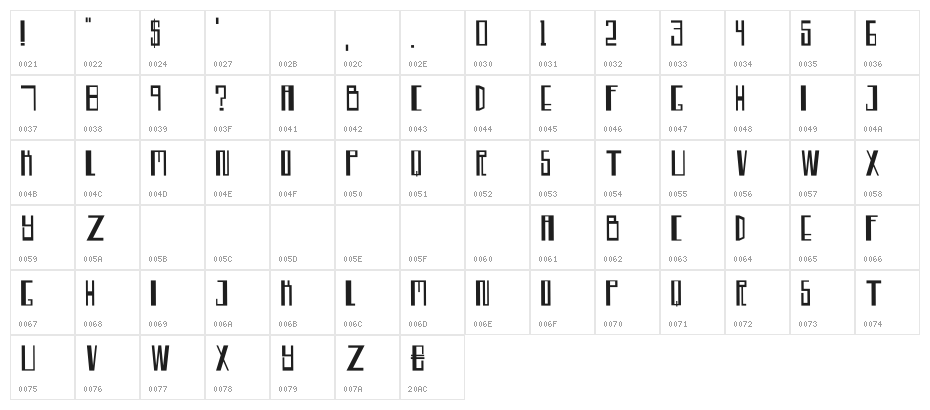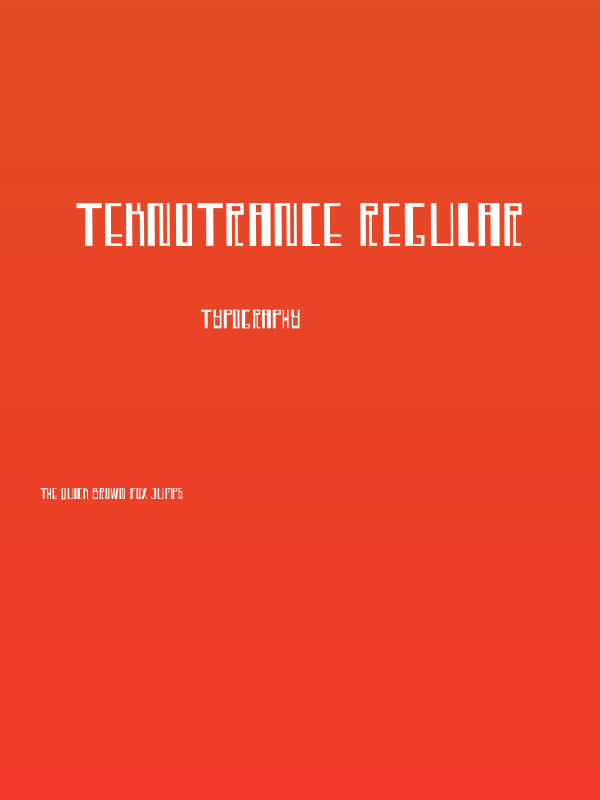
TeknoTrance-Regular Font
TeknoTrance-Regular Description
This font features a futuristic and geometric design, characterized by its sharp angles and clean lines. The uppercase letters are bold and structured, with a consistent height and width that gives a uniform appearance. The lowercase letters maintain the geometric style, offering a unique blend of modernity and readability. Numbers are distinct and align well with the overall aesthetic, making them suitable for digital displays. Special characters are designed to match the angular theme, ensuring a cohesive look across all glyphs. The font's style is ideal for projects that require a modern and tech-inspired feel.